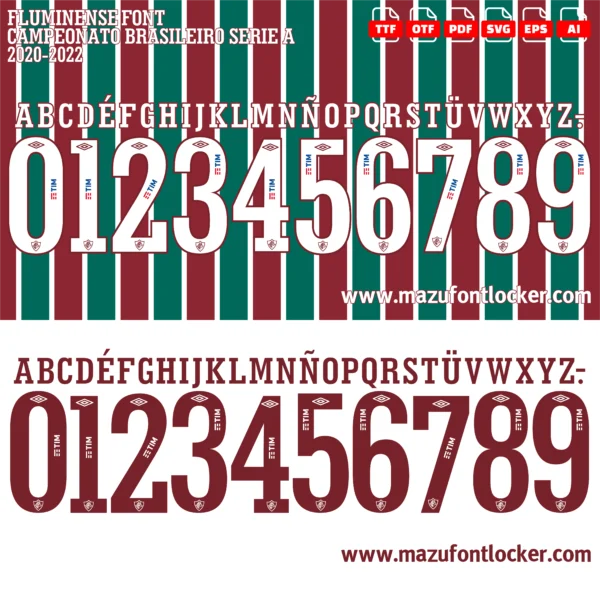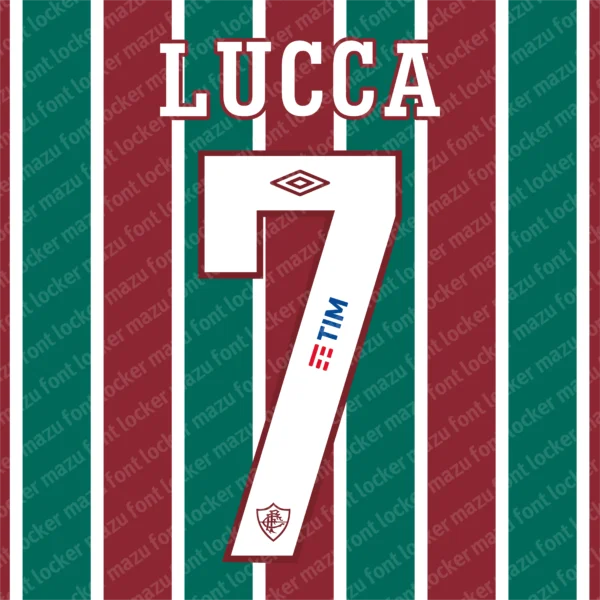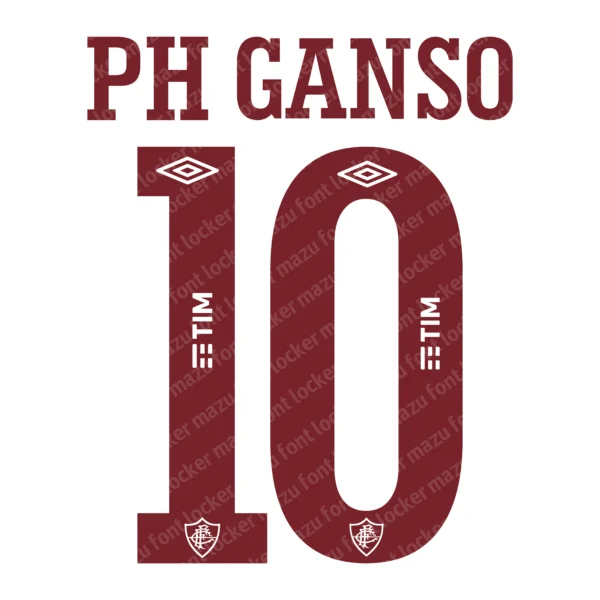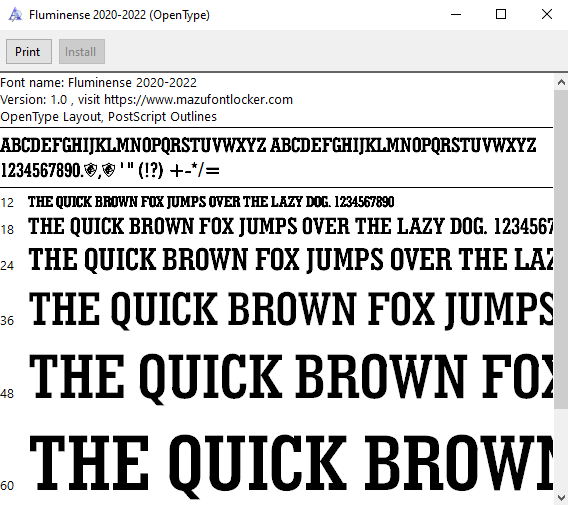
Fluminense 2020-2022 Font Vector – Legendary Tricolor Masterpiece
This font captures the unstoppable, precision-forged lettering inspired by Fluminense’s iconic green-red-white identity, proud Brazilian heritage, legendary Flu tradition, and fearless warrior-like football spirit — delivering premium authenticity and explosive match-day energy for professional jersey mockups, football graphics, sports branding, fan designs, and high-end creative projects.
Fluminense 2020-2022 Font Vector – Stunning Green & Maroon Typeface
The Fluminense 2020-2022 Font Vector is a premium typeface that accurately recreates the distinctive match lettering associated with Fluminense during the 2020-2022 football seasons. This high-quality vector font kit captures the bold, clean, and instantly recognizable typography that perfectly complements the club’s iconic green, maroon, and white identity.
Designed for professional designers, football enthusiasts, jersey collectors, and passionate Fluminense supporters, the Fluminense 2020-2022 Font Vector delivers exceptional authenticity for creating realistic jersey mockups, football merchandise, social media graphics, match posters, squad designs, and custom fan artwork. Every character has been carefully recreated to reflect the powerful and precise visual style of one of Brazil’s most traditional and passionate football clubs.
Why Choose Fluminense 2020-2022 Font Vector
This font stands out thanks to its precise vector construction and authentic club-inspired styling. Every letter and numeral has been meticulously recreated to match the distinctive football lettering aesthetic associated with Fluminense during the 2020-2022 seasons and its domestic and continental campaigns.
Whether you’re producing professional football kit templates, custom jersey concepts, or eye-catching football content, the Fluminense 2020-2022 Font Vector delivers a genuine match-ready appearance inspired by the identity of the Tricolor Carioca.
The lettering featured in the Fluminense 2020-2022 Font Vector combines clean geometric lines with bold modern proportions. The result is a premium and highly readable typeface that reflects Fluminense’s proud football heritage, iconic green and maroon colors, Carioca identity, and passionate global fanbase.
- Complete uppercase A–Z alphabet and numbers 0–9 in authentic Fluminense 2020-2022 inspired style
- Special Fluminense badge glyph – Press the “:” (Colon) key to insert the club crest
The Fluminense 2020-2022 Font Vector is inspired by the distinctive football typography and visual identity associated with this era, making it an excellent choice for designers creating custom jersey concepts, football posters, squad graphics, matchday artwork, and fan-made projects. For official club information, news, team updates, fixtures, and match information, visit the official Fluminense website.
The Fluminense 2020-2022 Font Vector is an independently designed typeface package inspired by the official shirt lettering and visual identity associated with Fluminense during the 2020-2022 football seasons. It has been carefully recreated for football enthusiasts, graphic designers, collectors, jersey creators, and fans producing custom football concepts, digital artwork, and fan-made projects. Please note that this is a fan-made design resource and is not an official product of Fluminense, the Brazilian Football Confederation (CBF), CONMEBOL, or any associated organization.